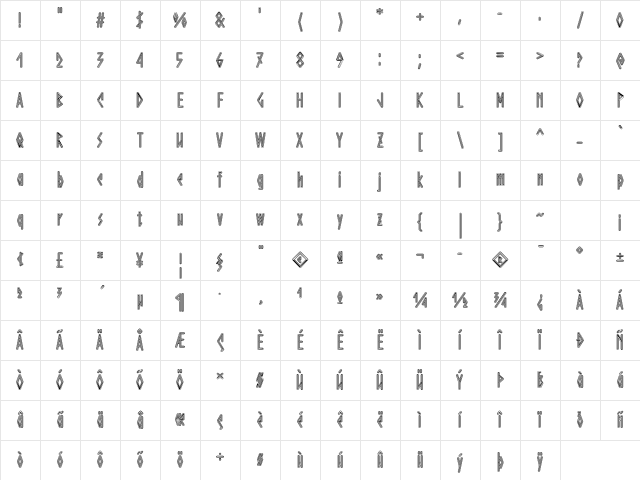
Baby Baby Color Green Upright
Style: Green Upright
Foundry: Dharma Type
Designer: Ryoichi Tsunekawa
Design Context for Baby Baby Color
Baby Baby Color is a composed and adaptable typeface that performs quietly and consistently across a wide range of design contexts.